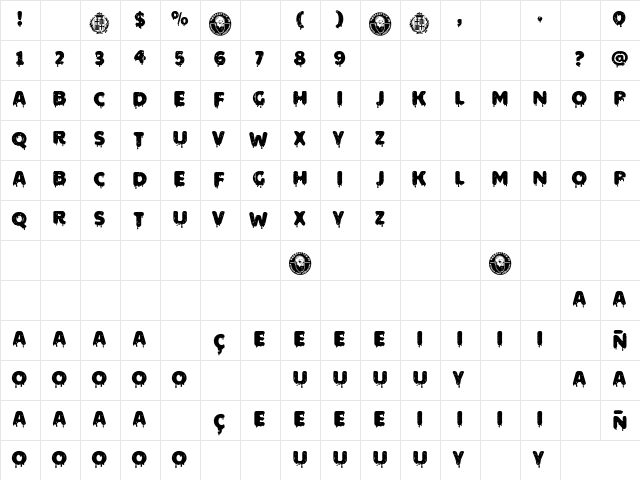
Barcelona Scared Regular Font Preview
Barcelona Scared Regular
Barcelona Scared Regular Font Details
| Designer | Woodcutter Manero |
Design Context for Barcelona Scared Typeface
Barcelona Scared is a composed and adaptable typeface that performs quietly and consistently across a wide range of design contexts.